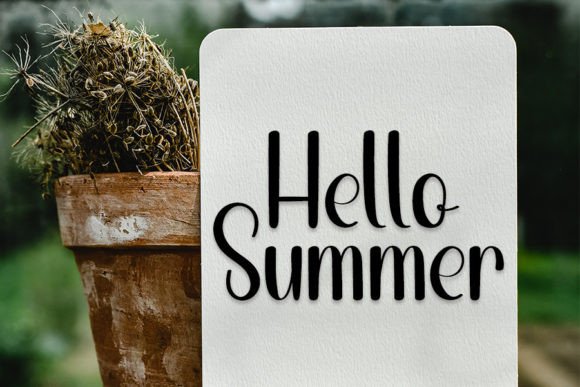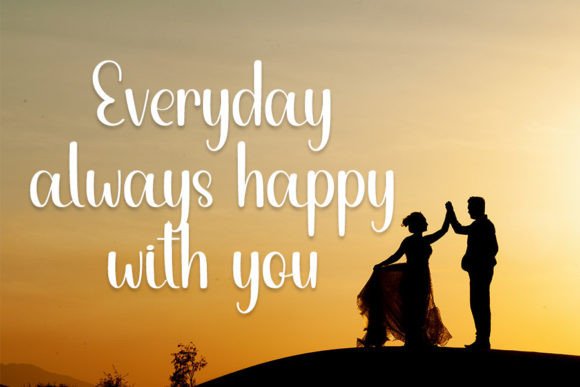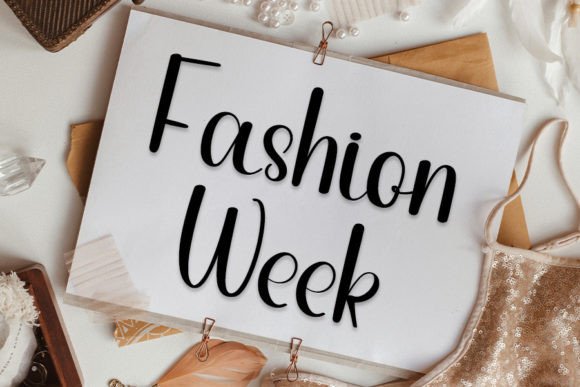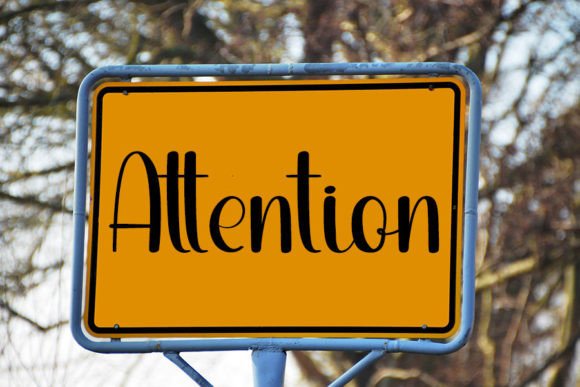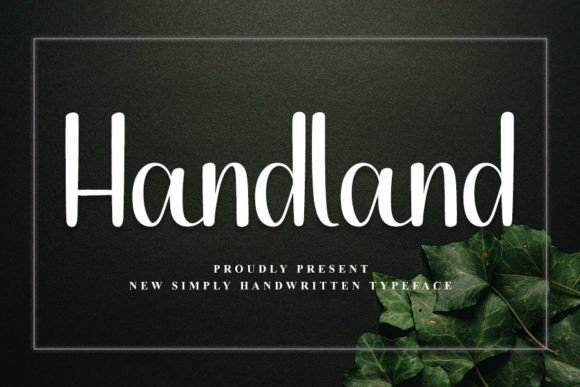
Introducing Handland Font: Elevate Your Designs with Elegance and Class
In the world of typography, a font can make or break a design. For designers and crafters looking to add a touch of sophistication and timelessness to their projects, Handland Font is an excellent choice. This trendy handwritten font boasts a contemporary atmosphere and impeccable form, drawing inspiration from classic calligraphy. In this article, we’ll explore the features and benefits of Handland Font, and how it can elevate your design projects.
A Timeless Classic with a Modern Twist
Handland Font is a masterful blend of traditional calligraphy and modern design. Its elegant strokes and fluid letterforms evoke a sense of nostalgia, while its clean lines and contemporary feel ensure it remains fresh and relevant. This font is perfect for designers seeking to add a touch of sophistication to their work, whether it’s for a branding project, packaging design, or digital content.
Key Features of Handland Font
- Trendy and Handwritten: Handland Font features a handwritten style that’s both trendy and timeless. Its unique letterforms and flowing strokes add a personal touch to any design.
- Contemporary Atmosphere: With its clean lines and modern feel, Handland Font is perfect for designers looking to create contemporary designs that appeal to a wide audience.
- Impeccable Form: The font’s impeccable form ensures that it remains legible and visually appealing, even at smaller sizes.
- Inspired by Classic Calligraphy: Handland Font draws inspiration from traditional calligraphy, adding a touch of elegance and sophistication to any design.
Handland Font offers numerous benefits for designers and crafters, including:
- Elegance and Class: Add a touch of sophistication to your designs with Handland Font’s elegant strokes and fluid letterforms.
- Versatility: Use Handland Font for a wide range of design projects, from branding and packaging to digital content and more.
- Time-Saving: With Handland Font, you can create professional-looking designs quickly and easily, without sacrificing style or quality.
- Unique and Memorable: Handland Font’s unique letterforms and handwritten style ensure that your designs stand out and remain memorable.
Tips for Using Handland Font
To get the most out of Handland Font, consider the following tips:
- Pair with Other Fonts: Combine Handland Font with other fonts to create visually appealing contrast and add depth to your designs.
- Experiment with Sizes and Colors: Play with different sizes and colors to find the perfect combination for your design.
- Use for Headings and Titles: Handland Font is perfect for headings and titles, adding a touch of elegance and sophistication to your designs.
Handland Font is a versatile and elegant font that’s perfect for designers and crafters looking to add a touch of sophistication to their designs. With its trendy handwritten style, contemporary atmosphere, and impeccable form, Handland Font is an excellent choice for a wide range of design projects. Whether you’re looking to create professional-looking designs quickly and easily, or simply want to add a unique and memorable touch to your work, Handland Font is an excellent choice.